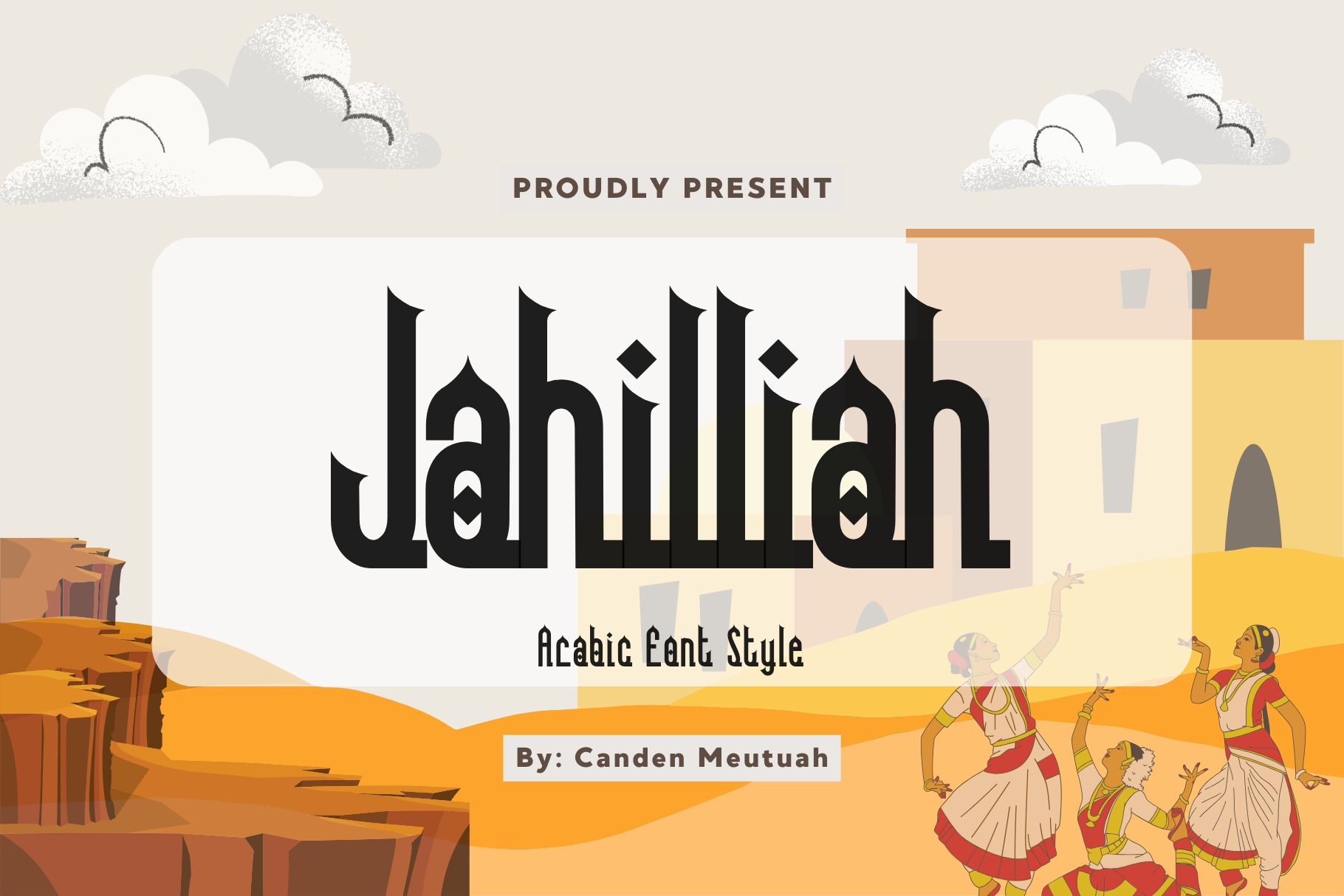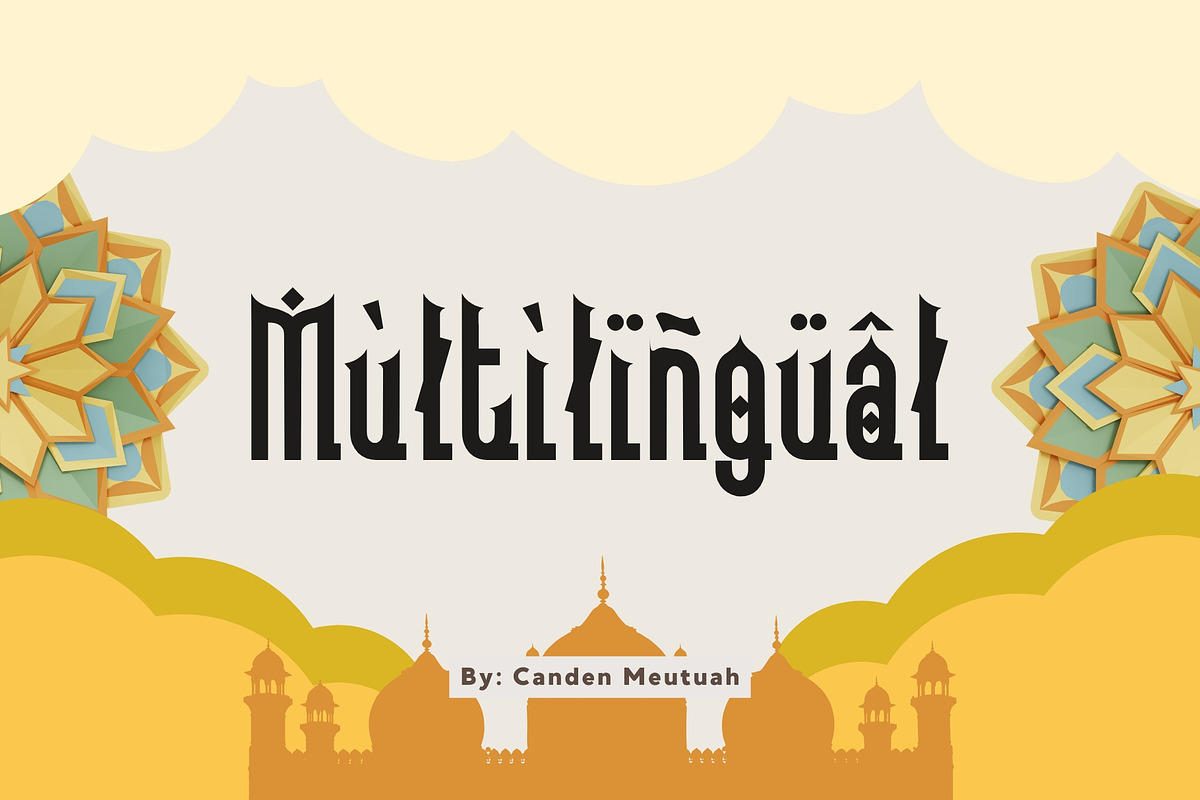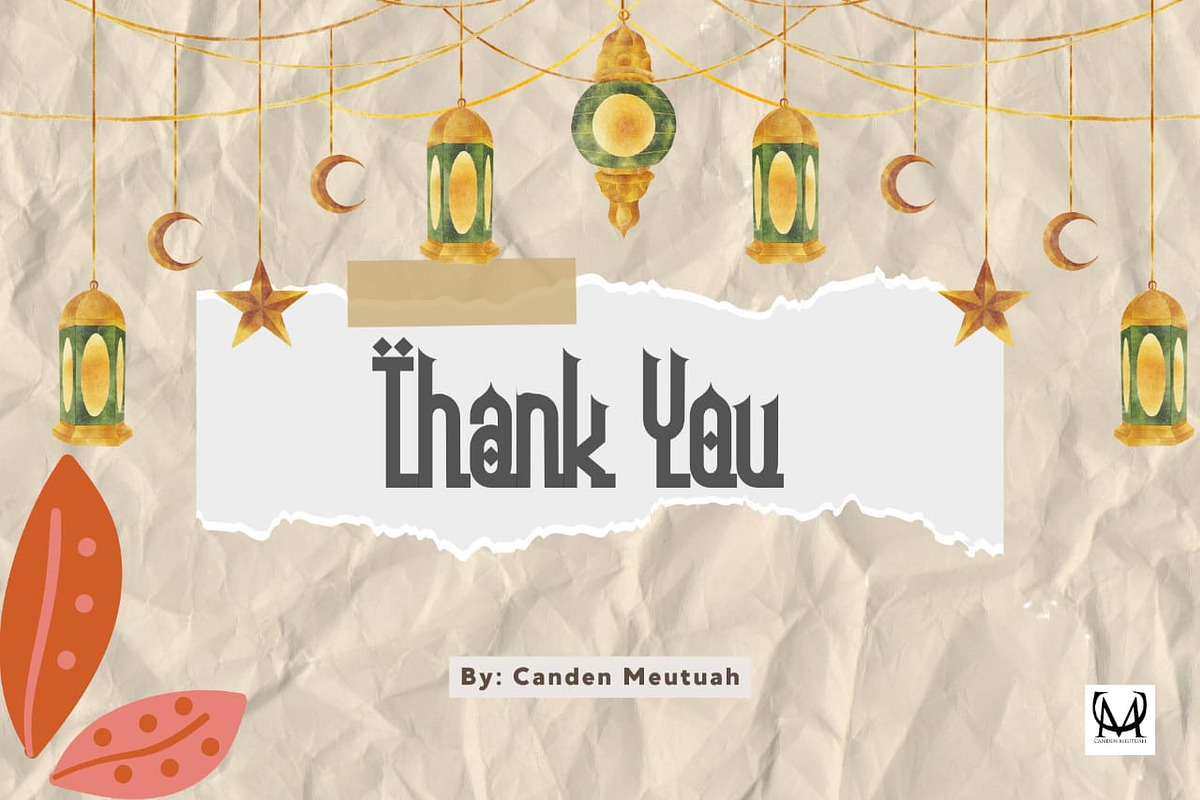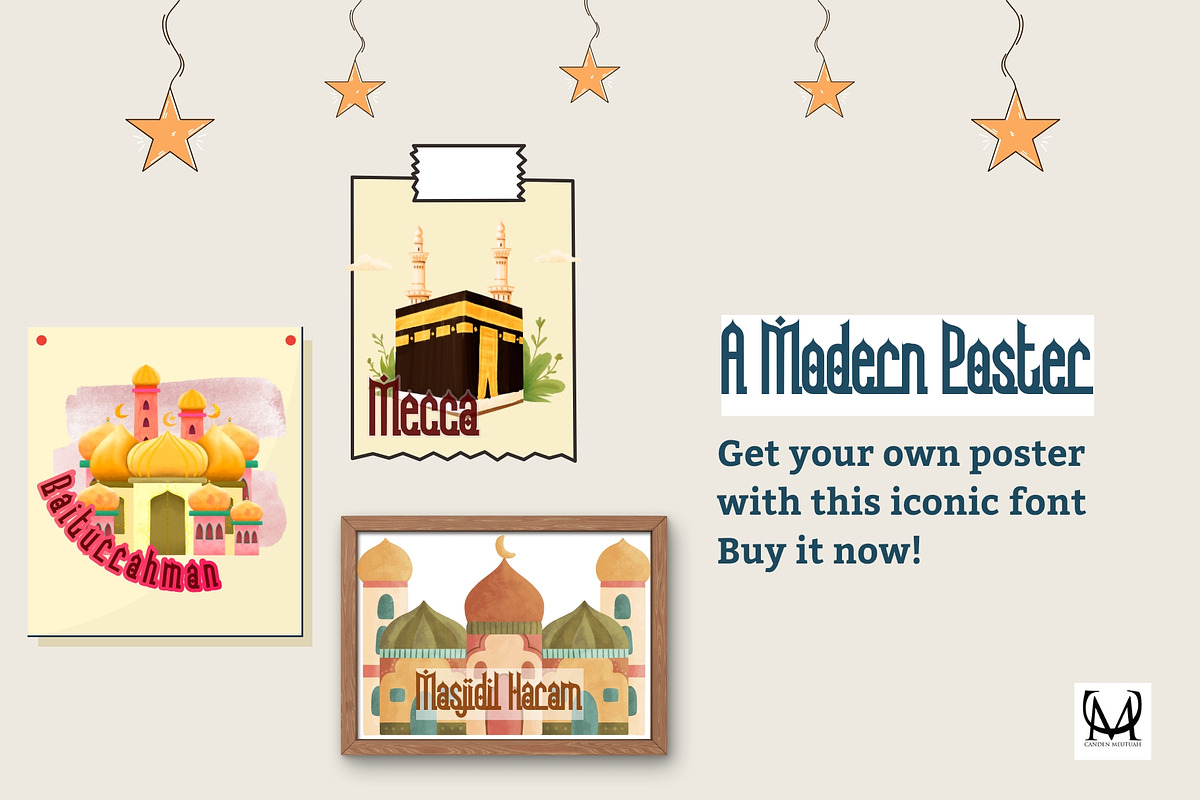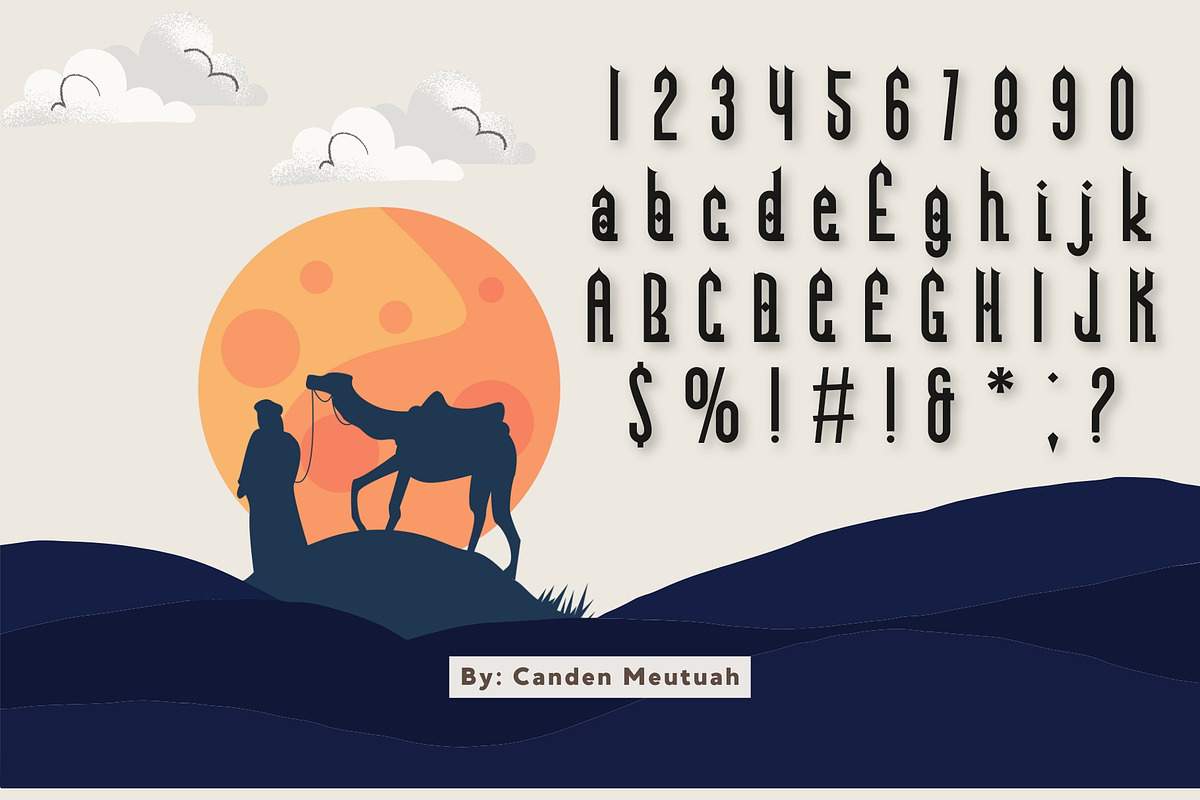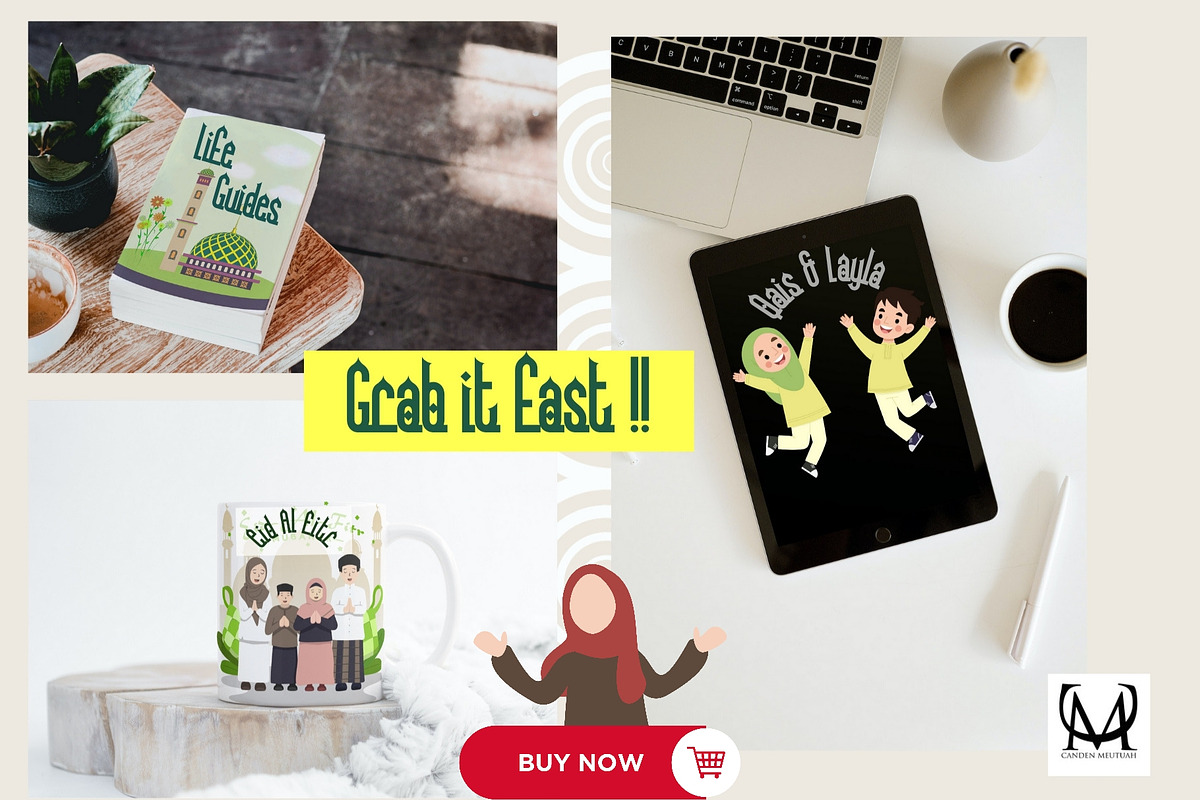
Jahilliah Arabic style font
Jahilliah this is a simple and elegant Slab serif font full of modern style Arabic. This font is very suitable for you to use for many purposes such as branding, logos, wedding designs, social media posts, advertising, product packaging, product design, labels, photography, watermarks, invitations, stationery, and any project. This font is complete with files. OTF, TTF, WOFF and can be used in many other languages. you will not be disappointed with the results. thank you